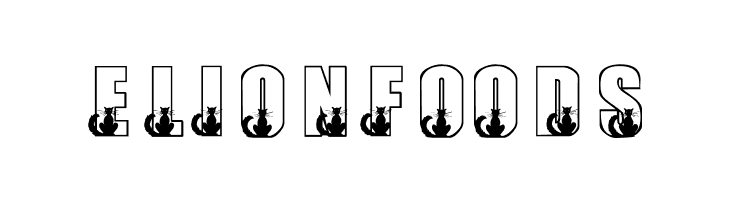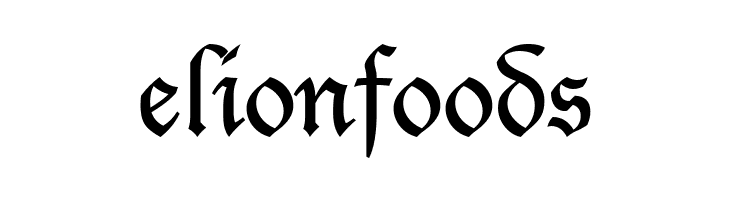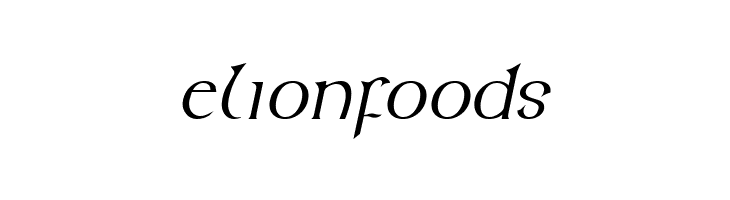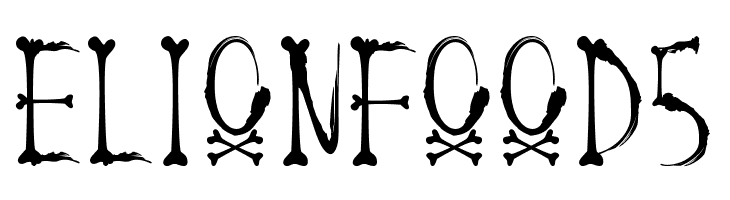
Halloween Fonts (1,014)
Halloween Fonts
1,014 fonts
Bostonia Regular Font
A bold, vintage-style font with thick, uneven strokes and a nostalgic charm.
Brushstroke Horror Font
A horror-themed font with jagged, brushstroke-style letters.
Brutal Brushstrokes Five Font
A dramatic, brushstroke-inspired display font with splattered, elongated forms.
Brutal Brushstrokes Four Font
Edgy brushstroke font with splatter and sharp, chaotic forms.
Brutal Brushstrokes One Font
Edgy, brushstroke font with sharp, distressed forms.
Brutal Brushstrokes Three Font
A bold, chaotic brushstroke font with sharp, distressed edges.
Bumkins Font
A decorative Halloween-themed font with unique jack-o'-lantern designs for each character.
Butcherman Caps Regular Font
A bold, horror-themed font with dripping, jagged characters.
Butcherman Regular Font
A bold, horror-themed font with dripping, jagged characters.
Butchermann Caps Regular Font
A bold, distressed font with a dripping effect, perfect for horror themes.
CAC Valiant Font
A decorative blackletter font with intricate, medieval-inspired design.
Candle Light Italic Font
A bold, dripping font with an eerie, horror-inspired style and italic slant.
candlelight Font
A bold, dripping font with a spooky, wax-like appearance.
Candylands_DEMO Font
Bold, dripping display font with a playful and spooky vibe.
Caos Kecap Font
A bold, dripping font with a chaotic, eerie style.
CatBats Font
A decorative font with intricate cat and bat illustrations within each character.
Cemetery King Font
A spooky, dripping font perfect for horror themes.
Cemetery Picnic Font
A bold, dripping display font with a horror or Halloween vibe.
CF Ghost Stories Regular Font